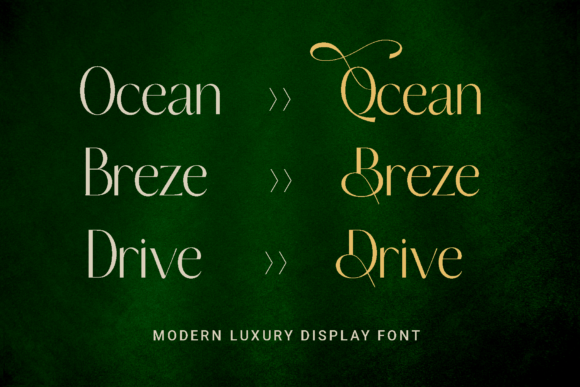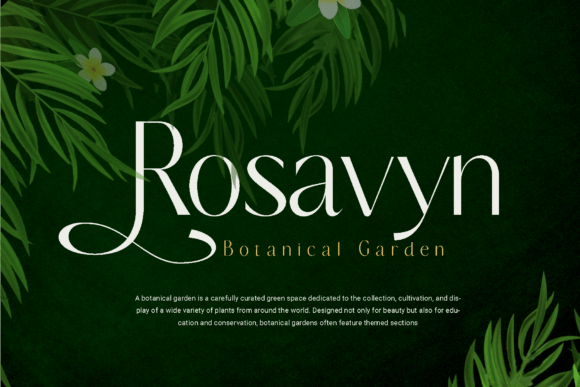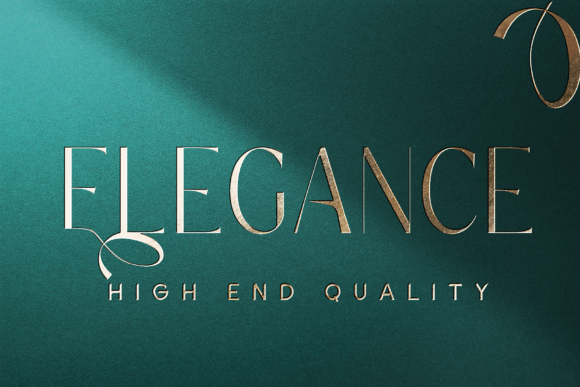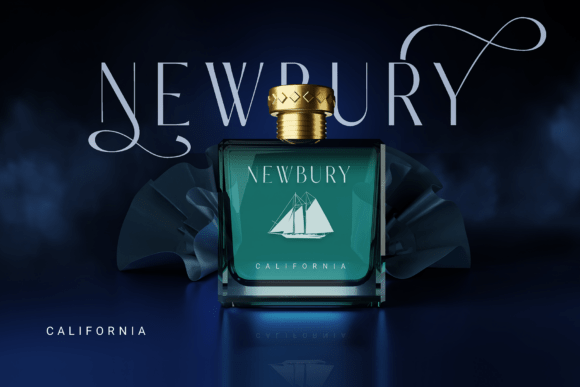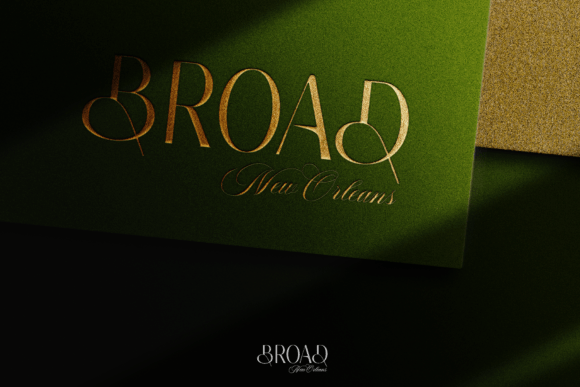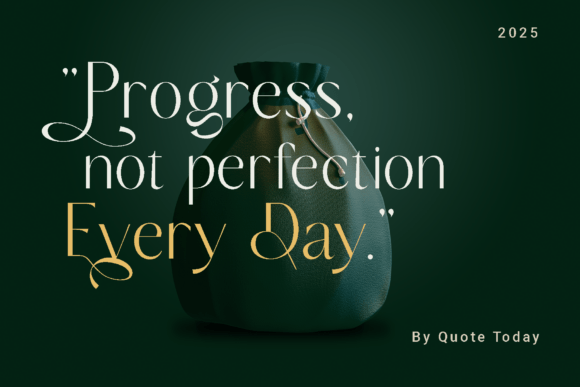
Introducing Belavey Font: The Epitome of Luxury and Sophistication
In the realm of typography, few fonts manage to convey the essence of luxury and sophistication as effectively as Belavey Font. This refined modern luxury display font has been meticulously crafted to exude an air of elegance and class, making it the perfect choice for designers and crafters seeking to elevate their branding, magazine headlines, fashion labels, and product packaging.
The Distinctive Characteristics of Belavey Font
Belavey Font is distinguished by its high-contrast strokes and elegant curves, which collectively contribute to its sophisticated aesthetic. The font’s design is characterized by a meticulous attention to detail, evident in the way each letter is carefully crafted to convey a sense of refinement and poise. The high contrast between the thick and thin strokes adds a level of visual interest, making the font particularly effective for use in headlines and titles.
The Bespoke Touch: Unique Flourishes in Belavey Font
One of the standout features of Belavey Font is the distinctive flourishes that adorn certain letters, particularly the capital “B.” These flourishes add a bespoke touch to the font, imbuing it with a sense of exclusivity and high-end quality. This unique characteristic makes Belavey Font an excellent choice for premium design work, where the goal is to create a lasting impression of luxury and sophistication.
Ideal Applications for Belavey Font
Given its elegant and refined nature, Belavey Font is perfectly suited for a variety of applications where a high-end aesthetic is desired. Some of the ideal uses for Belavey Font include:
- Upscale Branding: For companies looking to establish a luxury brand identity, Belavey Font offers a sophisticated and classy solution.
- Magazine Headlines: The font’s high-contrast strokes and elegant curves make it a compelling choice for magazine headlines, adding a touch of elegance to any publication.
- Fashion Labels: Belavey Font’s luxurious feel makes it an excellent fit for fashion brands seeking to convey a sense of high-end style and sophistication.
- Fine Product Packaging: For brands offering premium products, Belavey Font can be used to create packaging that reflects the high quality of the product inside.
Why Choose Belavey Font?
Choosing Belavey Font for your design projects offers several advantages. Firstly, its unique and distinctive appearance ensures that your work stands out from the crowd, making it particularly effective for brands and designers looking to establish a strong visual identity. Secondly, the font’s versatility allows it to be used across a range of applications, from digital media to print materials. Finally, the elegance and sophistication that Belavey Font embodies make it an excellent choice for any project where a high-end aesthetic is desired.
Tips for Using Belavey Font Effectively
To get the most out of Belavey Font, consider the following tips:
- Use it Sparingly: Given its luxurious and sophisticated nature, Belavey Font is best used sparingly. It’s particularly effective as a headline or title font, where its impact can be maximized.
- Pair it with Simpler Fonts: For body text, consider pairing Belavey Font with simpler, more straightforward fonts to create visual contrast and ensure readability.
- Experiment with Colors: While Belavey Font looks stunning in traditional metallic colors like gold and silver, don’t be afraid to experiment with different colors to find the perfect match for your brand or design.
| Font Name | Belavey Font |
| Author | RHD Creative Studio |
Belavey Font represents the pinnacle of luxury typography, offering designers and crafters a powerful tool for creating visually stunning and sophisticated designs. Its high-contrast strokes, elegant curves, and distinctive flourishes make it the perfect choice for upscale branding, magazine headlines, fashion labels, and fine product packaging. By incorporating Belavey Font into your design repertoire, you can elevate your work to new heights of elegance and sophistication, ensuring that your projects leave a lasting impression on your audience.